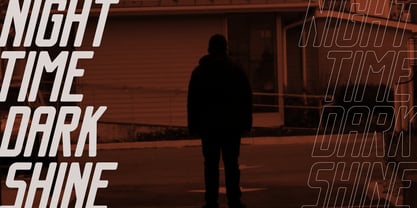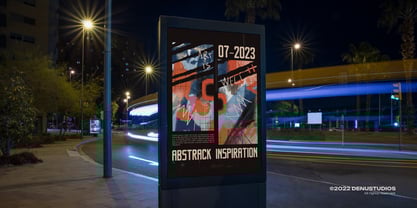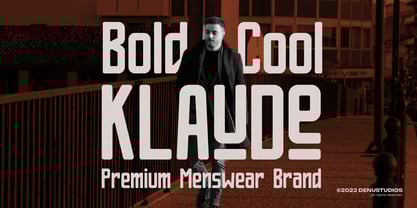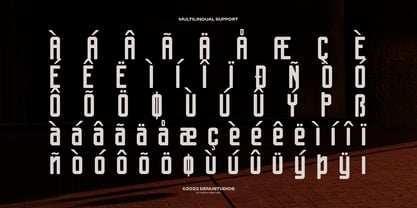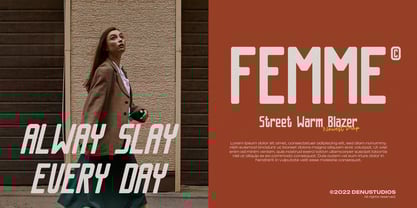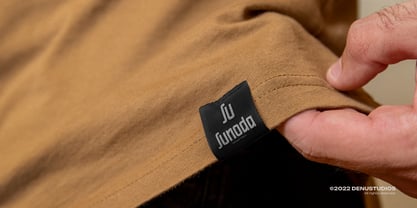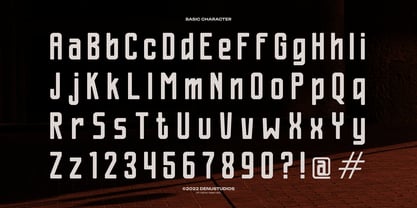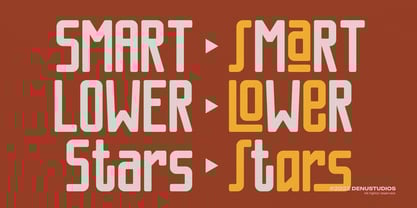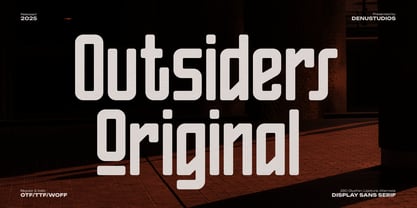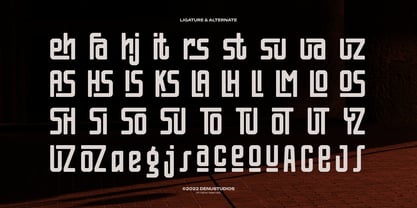
Outsiders Original
The Outsiders Original Font Family was designed by Dede Nugraha and published by Denustudio. Outsiders Original contains 2 styles and family package options. More about this family
Outsiders Original | Display Sans Serif, from Denustudios, suitable for any projects such as: logos, branding projects, homeware designs, product packaging, mugs, quotes, posters, shopping bags, t-shirts, book covers, name card, invitation cards, greeting cards, label, photography, watermark, special events, and all your other lovely projects that need Display Sans Serif a taste.
• Regular and Italic
• Alternate and Ligature